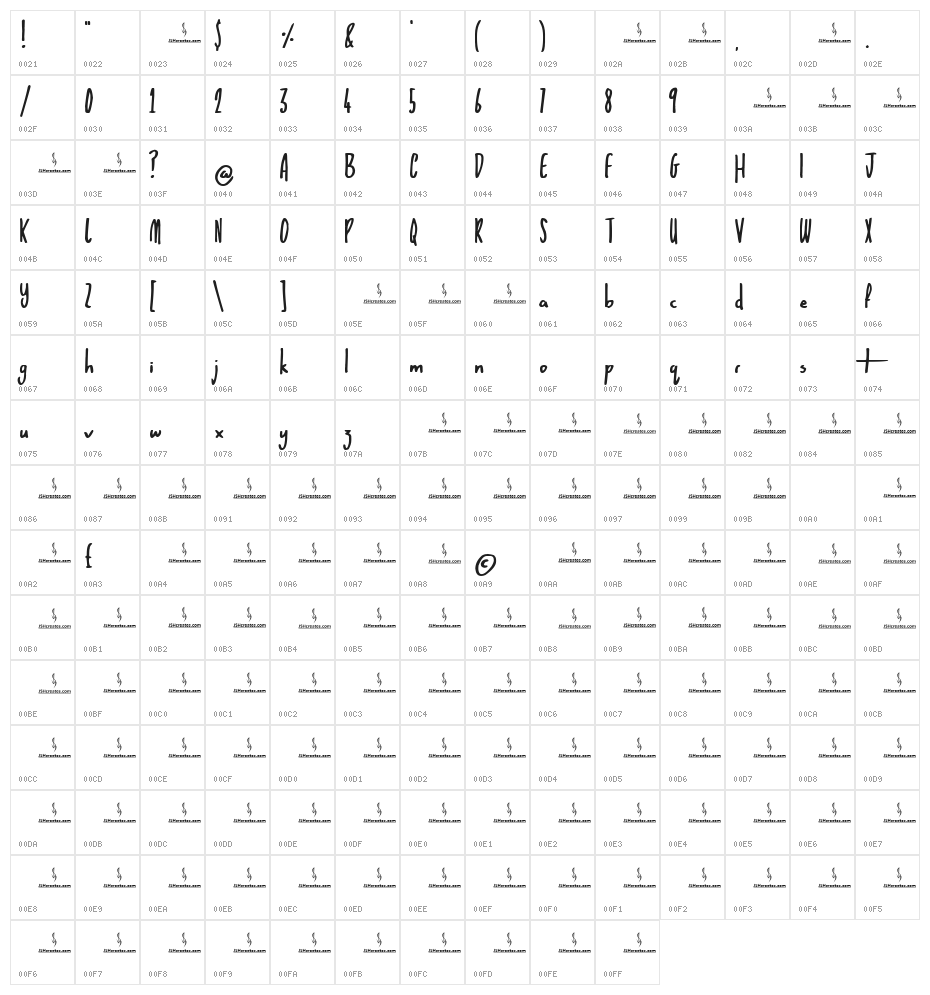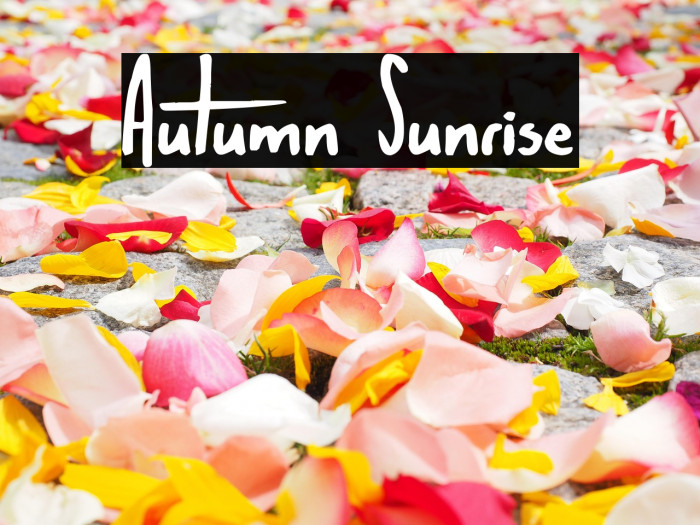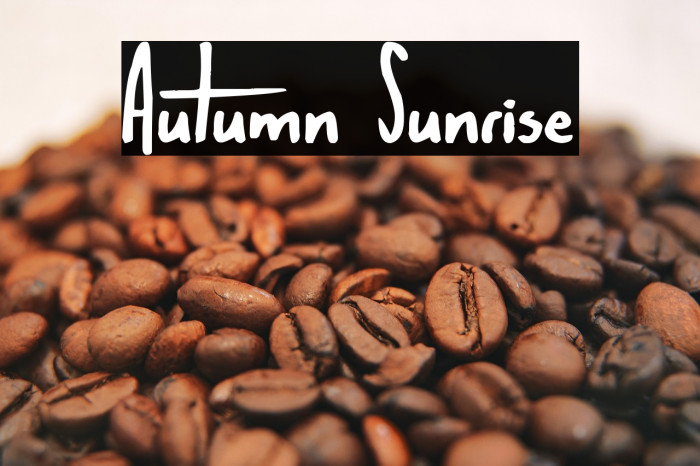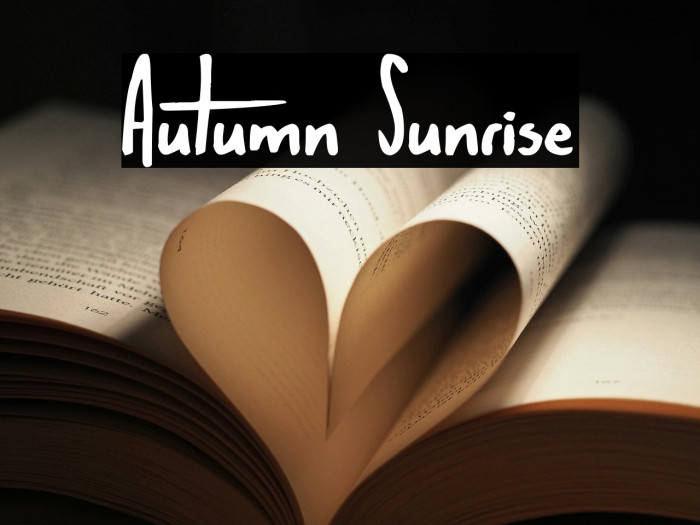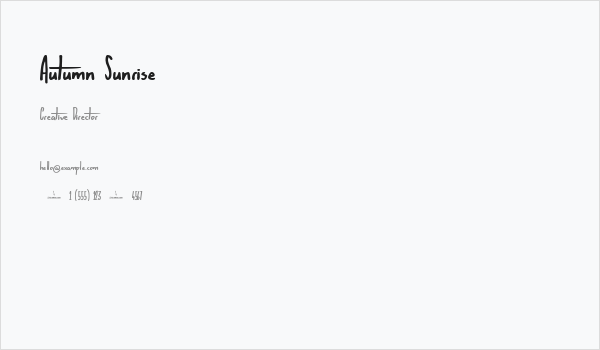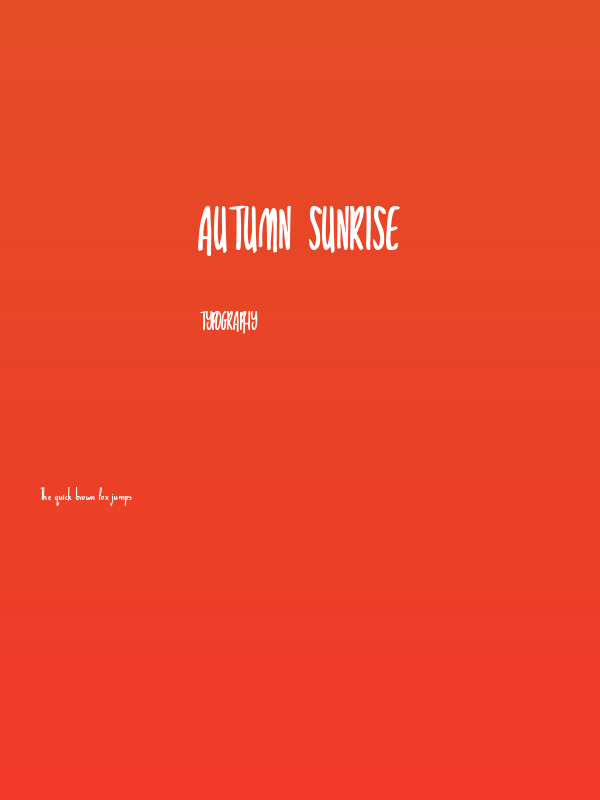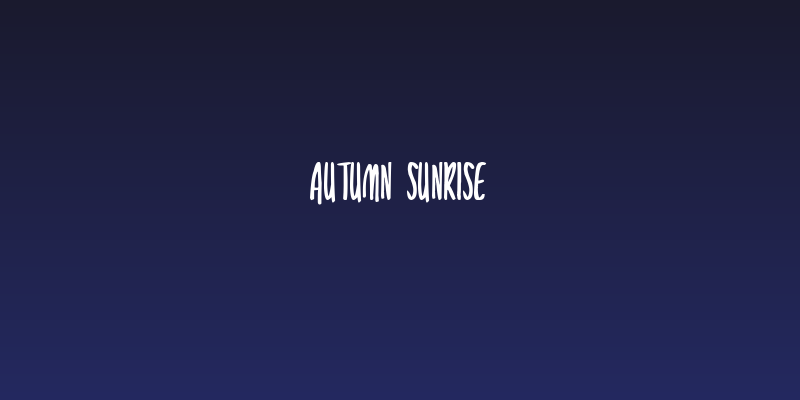
Autumn Sunrise Font
Autumn Sunrise Description
This font features a playful and energetic handwritten style, characterized by its bold and slightly irregular strokes. The uppercase letters are tall and narrow, giving a sense of height and elegance, while the lowercase letters maintain a consistent flow with rounded edges. The numbers are distinct and easy to read, matching the overall casual and friendly appearance of the alphabet. Special characters are creatively integrated, adding to the font's versatility. This style is perfect for projects that require a personal touch or a sense of informality.
Overall StyleCasual, Playful
Use CaseHeadlines, Logos, Invitations
Proposed ProjectsIdeal for greeting cards, invitations, posters, and branding that seeks a personal and informal touch.